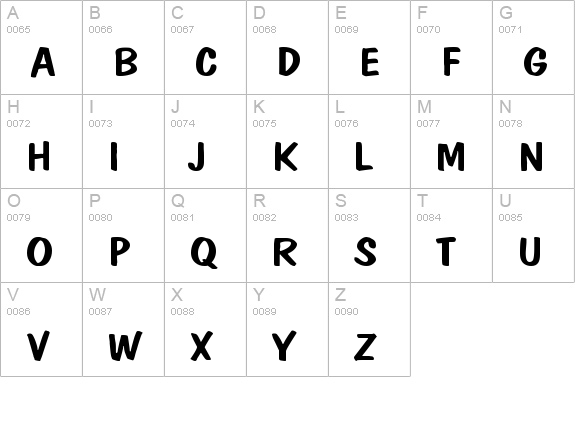
DonCasualExtended is a stylish and versatile font that effortlessly blends casual charm with a touch of sophistication. With its elongated and slightly slanted letterforms, this font exudes a sense of modernity and creativity. Perfect for a variety of design projects, from branding to editorial design, DonCasualExtended is sure to make a statement. And the best part? DonCasualExtended is available for free download at FontsMarket.com. So go ahead and add this unique and eye-catching font to your collection today!